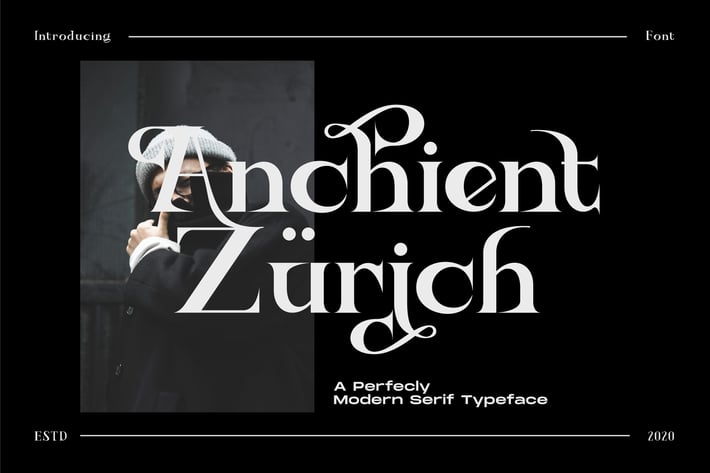
Ancient Zurich - Serif Elegant Font Logotype Brand
Ancient Zurich Serif was inspired by trend of typography in SWISS. The font is look elegant and classy. and it works so well in modern settings as well as paired with Modern Sans. We love how easy it is to use in designs and know you will too.
Feature :
- Stylistic Alternative
- Stylistic Set
- Swash
- A-Z
- Numeral
- Symbol